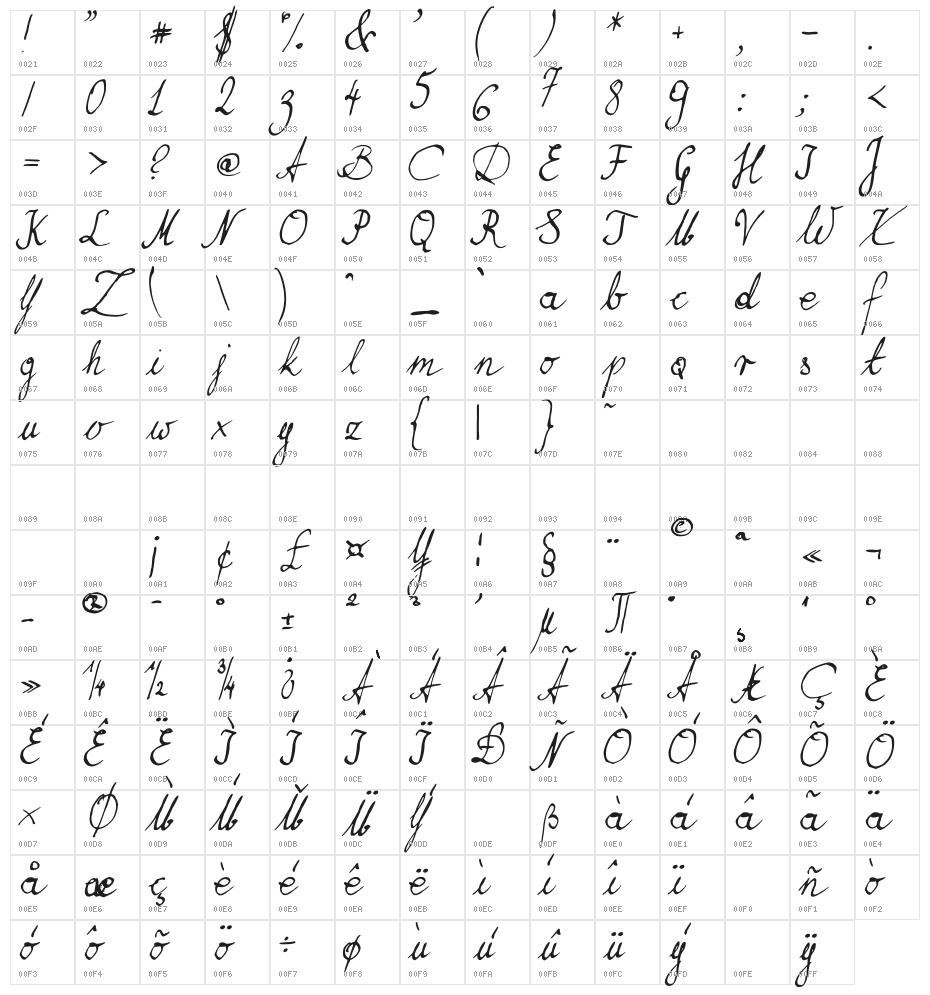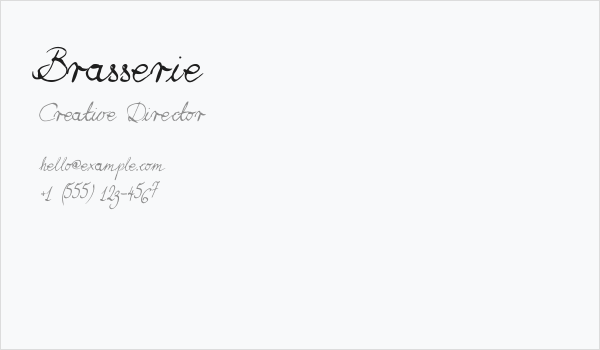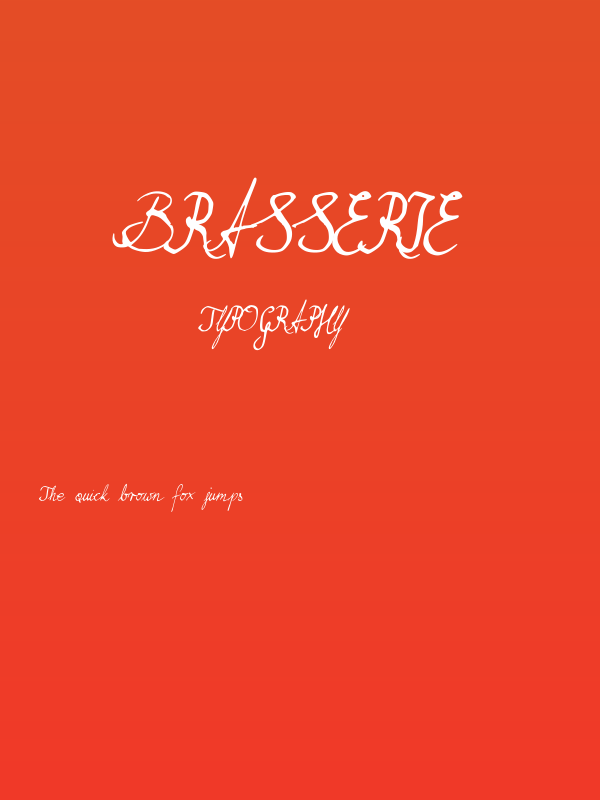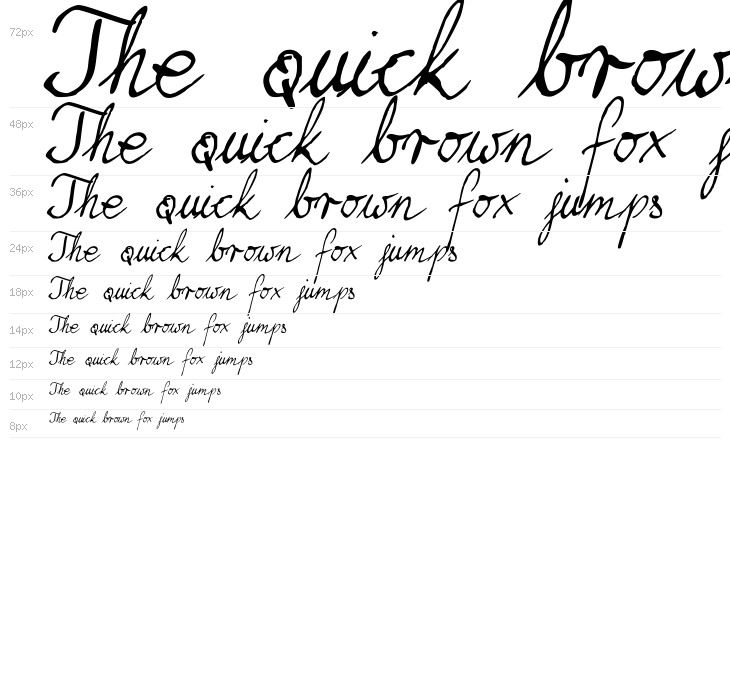
Brasserie Font
Brasserie Description
This font exudes a dynamic and energetic style, characterized by its fluid, cursive script that mimics the natural flow of handwriting. The letters are interconnected with sweeping strokes and loops, giving it an elegant yet casual appearance. The uppercase letters are bold and prominent, while the lowercase letters maintain a consistent flow, enhancing readability. The numbers and special characters follow the same cursive style, ensuring uniformity across all characters. This font's unique charm lies in its ability to convey a sense of movement and personality, making it suitable for creative and expressive design projects.
Use CaseLogos, Invitations, Artistic designs
Proposed ProjectsIdeal for wedding invitations, greeting cards, personal branding, and artistic projects that require a personal touch.